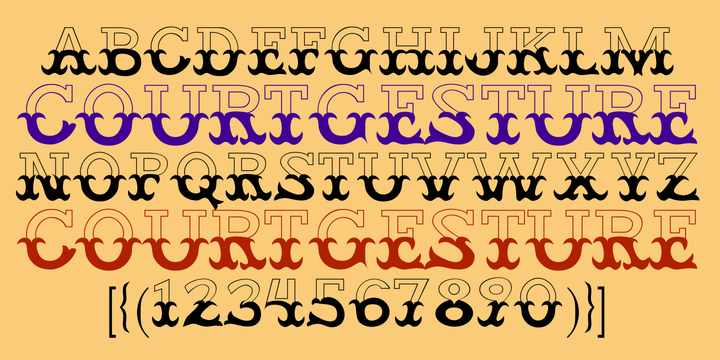
Court Gesture
Design Credits
Designed by: Robert Schenk
Designed when: 1990
Contained in Category: Decorative & Display
Design owned by: Ingrimayne Type
Court Gesture
CourtGesture and friends are zany, absurd, whimsical typefaces that were inspired by nineteenth century faces that have one style on the top and another on the bottom. They are rather crudely drawn